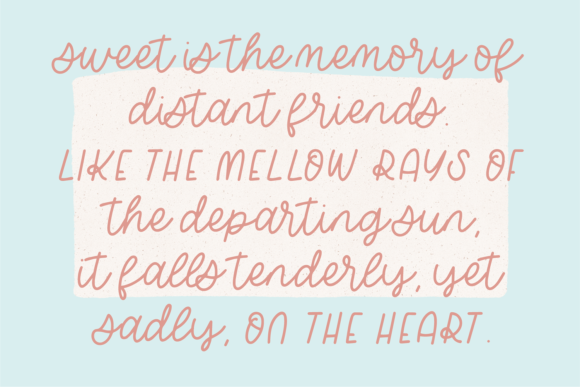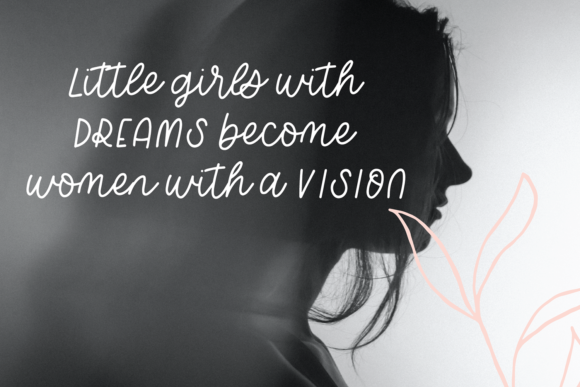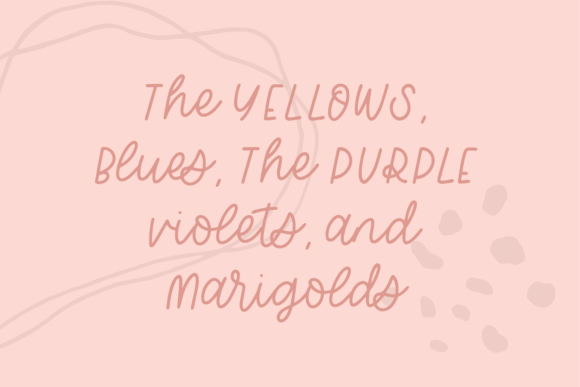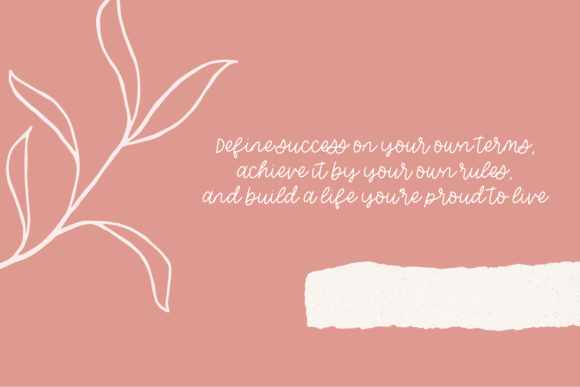
Introduction to Italia Catania Font
Italia Catania is a classic script font with a friendly feel.
Key Features of Italia Catania Font
Italia Catania Font offers exceptional quality and versatility, making it a valuable addition to your design toolkit. Whether you’re creating for personal projects or commercial use, Italia Catania Font delivers professional results.